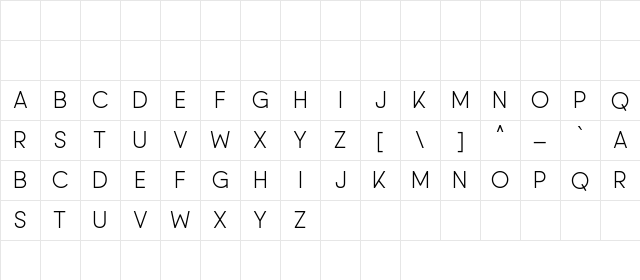
Complete Palette Thin glyph index. Displaying only characters natively supported by Palette Thin font.
Palette is a composed and adaptable typeface that performs quietly and consistently across a wide range of design contexts. Its slender proportions lend an understated elegance to any composition.